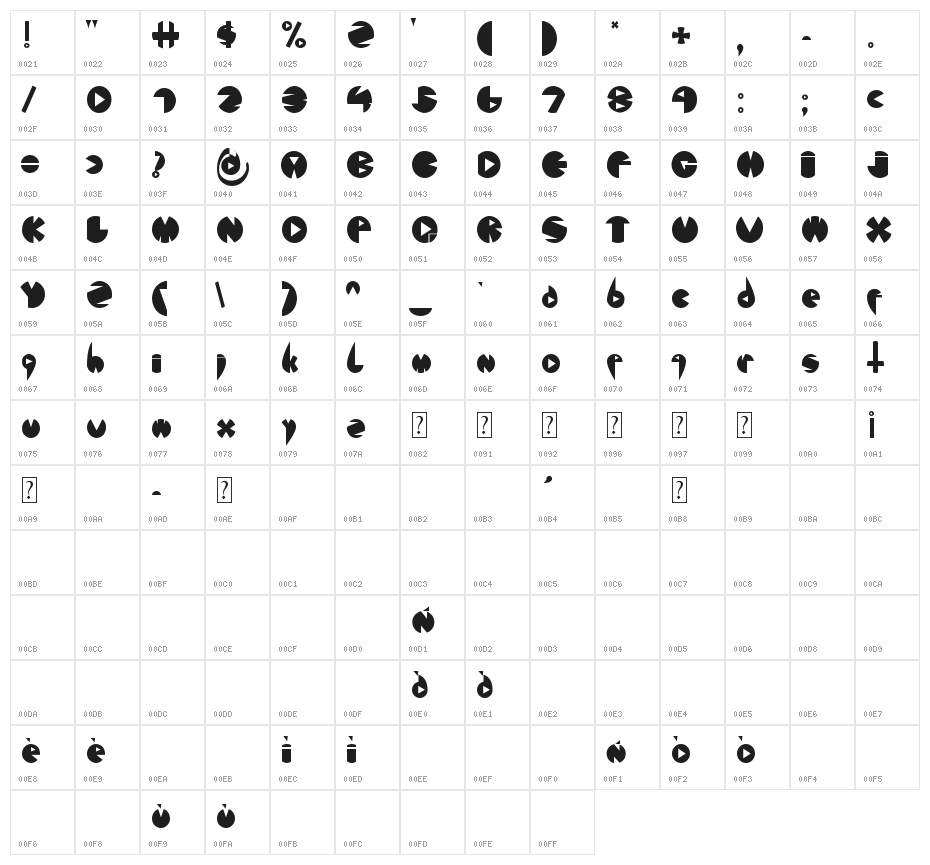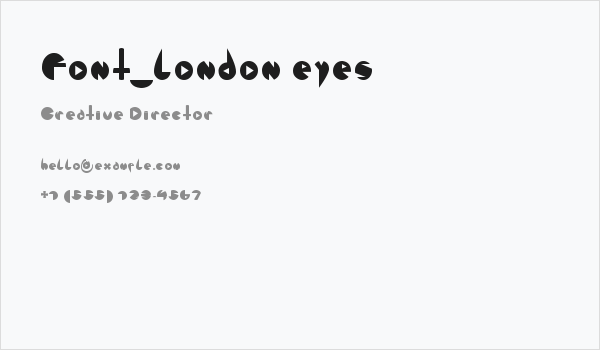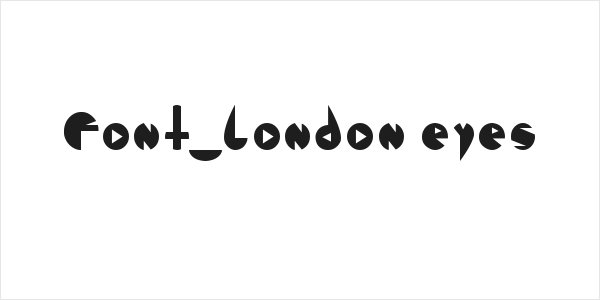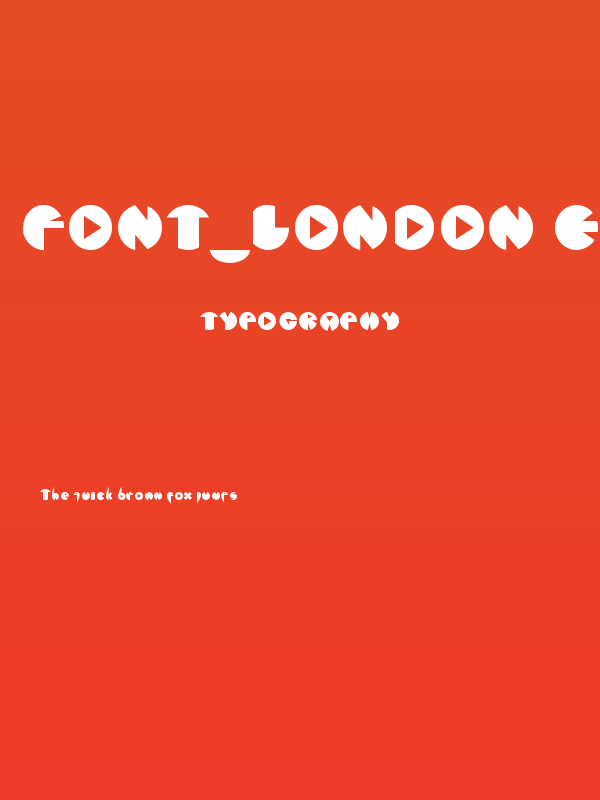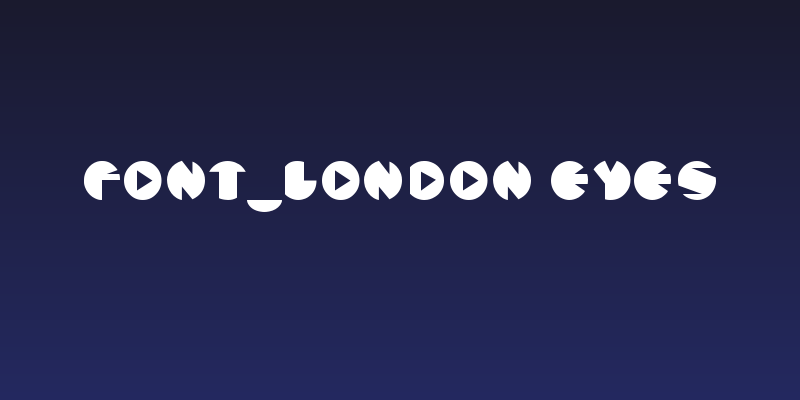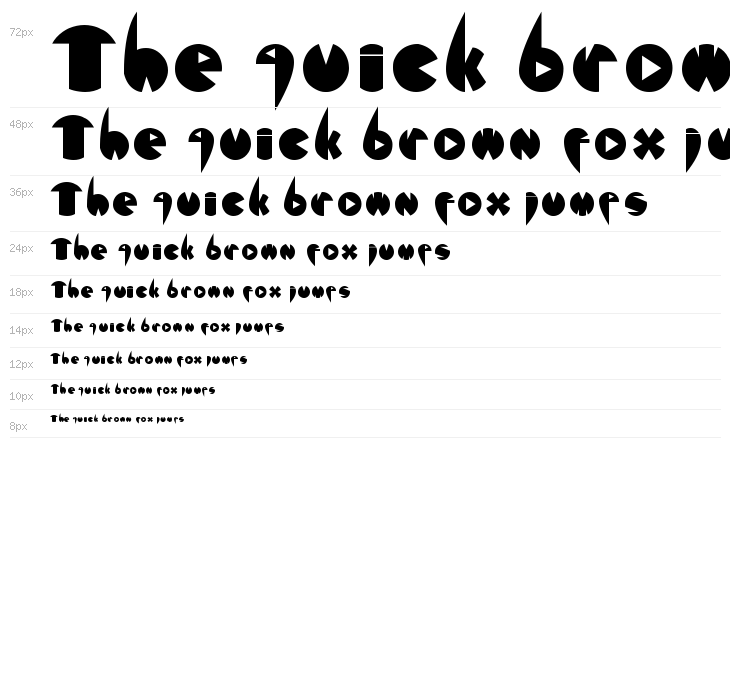
Font_london eyes Font
Font_london eyes Description
This font features a bold, geometric design with a modern and artistic flair. Each character is crafted with a unique combination of circular and angular shapes, creating a visually striking appearance. The uppercase and lowercase letters maintain a consistent style, with sharp edges and rounded forms that give the font a futuristic and abstract look. The numbers and special characters follow the same design principles, ensuring a cohesive aesthetic throughout. This font's distinct style makes it ideal for creative projects that require a bold statement.
| Overall Style | Modern, Artistic |
| Proposed Projects | Ideal for branding, posters, album covers, and any project that requires a bold, artistic statement. |